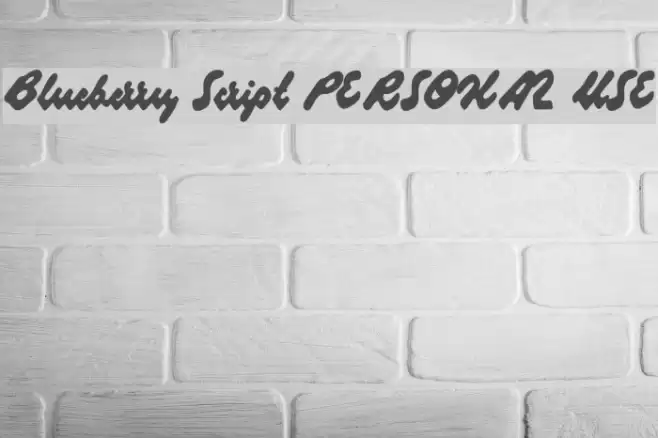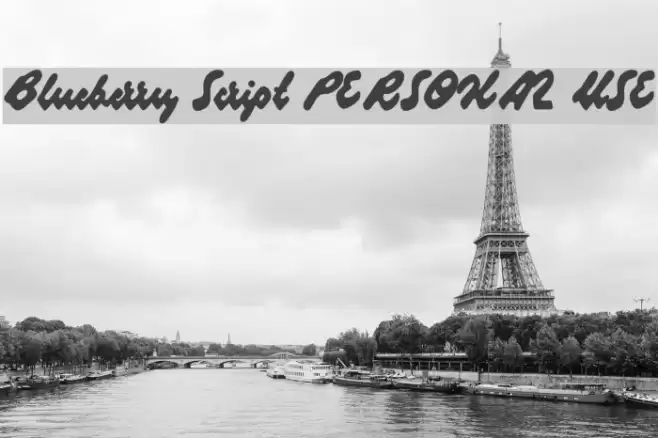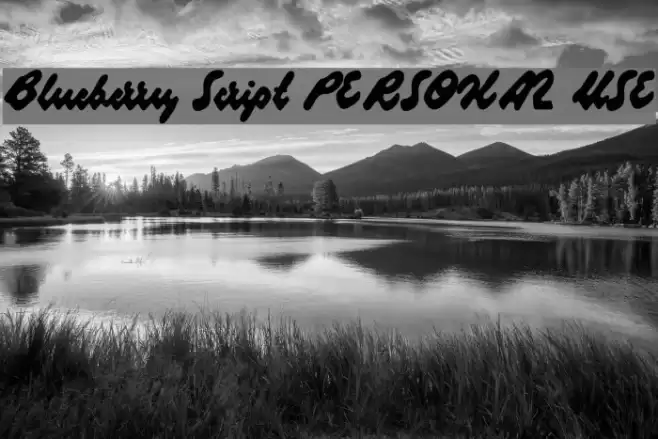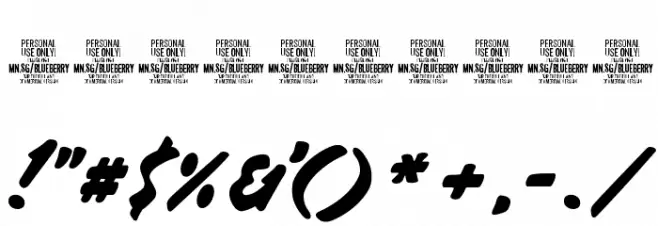
Blueberry Script PERSONAL USE Font
Blueberry Script PERSONAL USE Description
This font features a bold, flowing script style with a modern and playful touch. The characters are interconnected, creating a seamless and continuous look that mimics handwriting. The strokes are thick and rounded, giving a sense of warmth and friendliness. The uppercase letters are slightly larger and more pronounced, while the lowercase letters maintain a consistent flow. The numbers and special characters follow the same script style, ensuring uniformity across all text. This font is ideal for creating eye-catching designs that require a personal and informal touch.
A bold, flowing script font with a modern, playful style from Uncategorized fonts.
- Proposed Projects: Ideal for greeting cards, invitations, logos, and branding materials that require a personal touch.
- Character Spacing: Tight
- Use Case: Logos, Headlines, Invitations